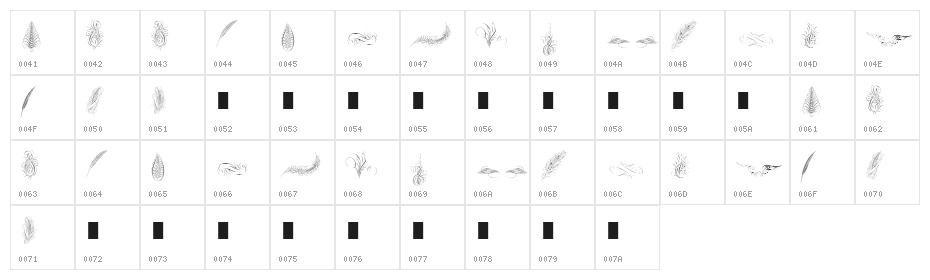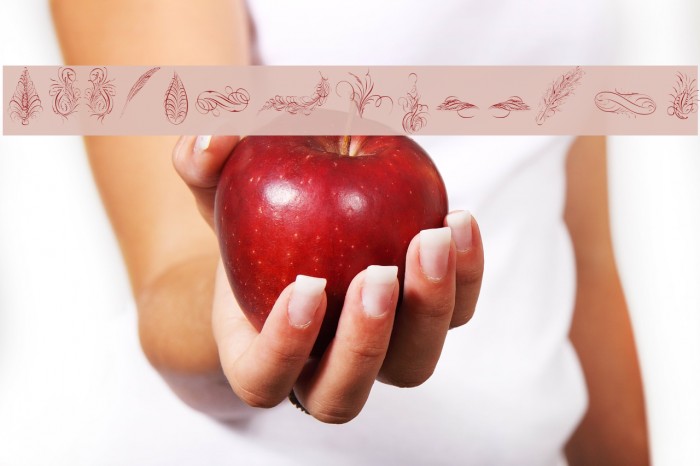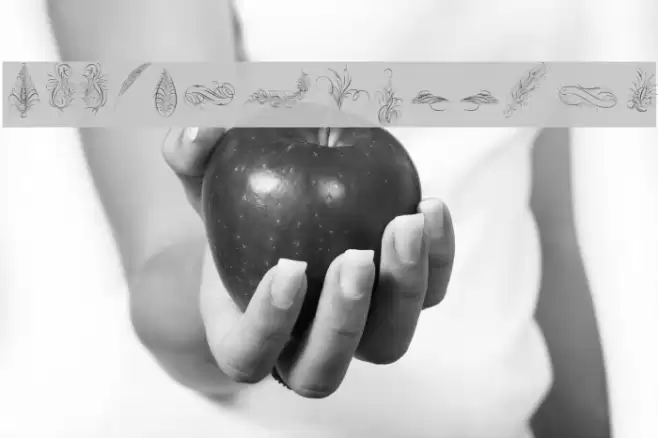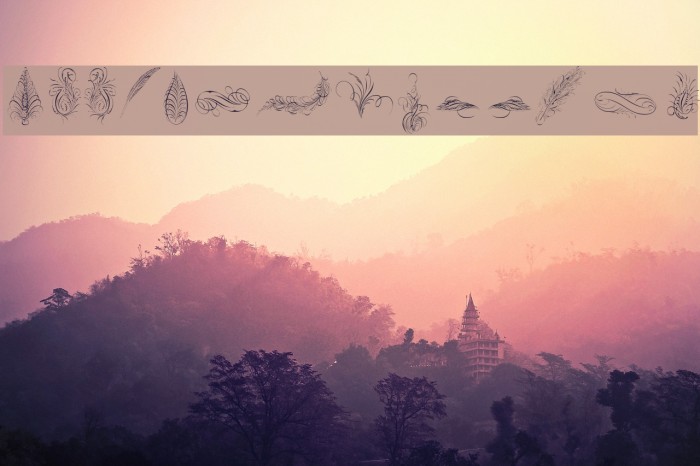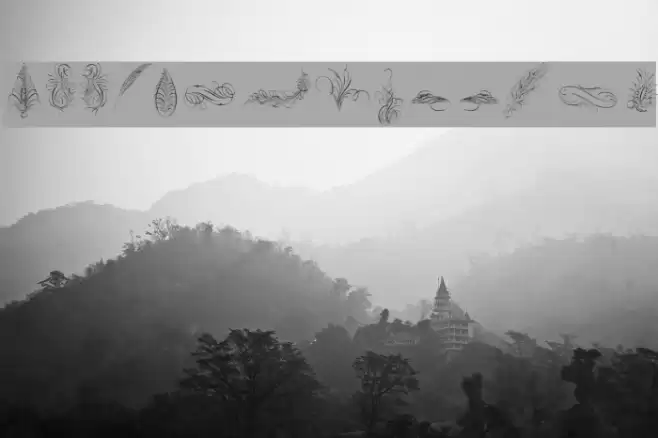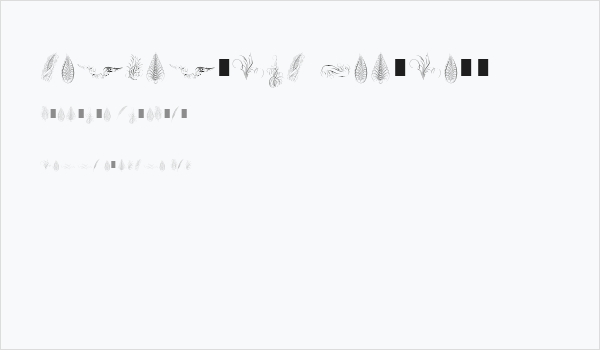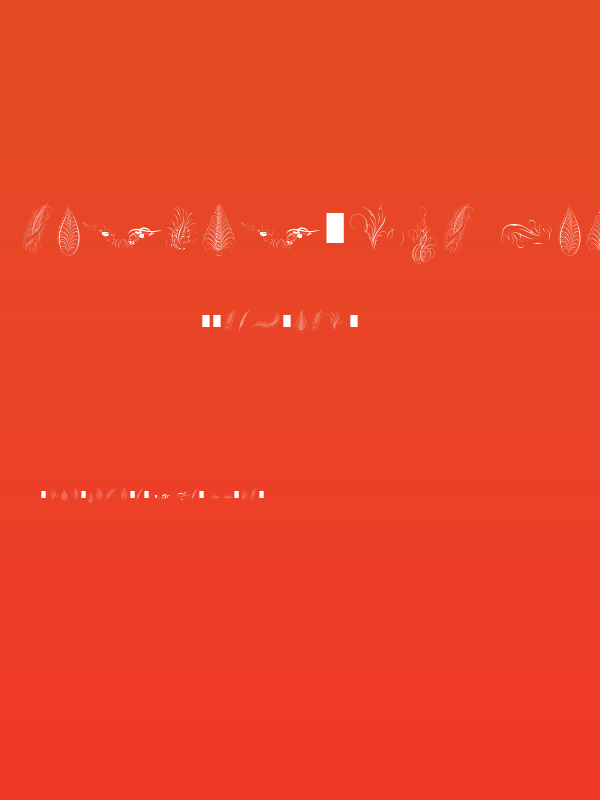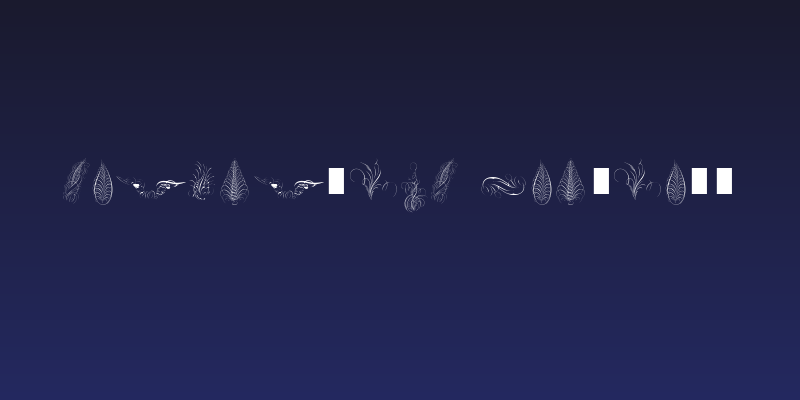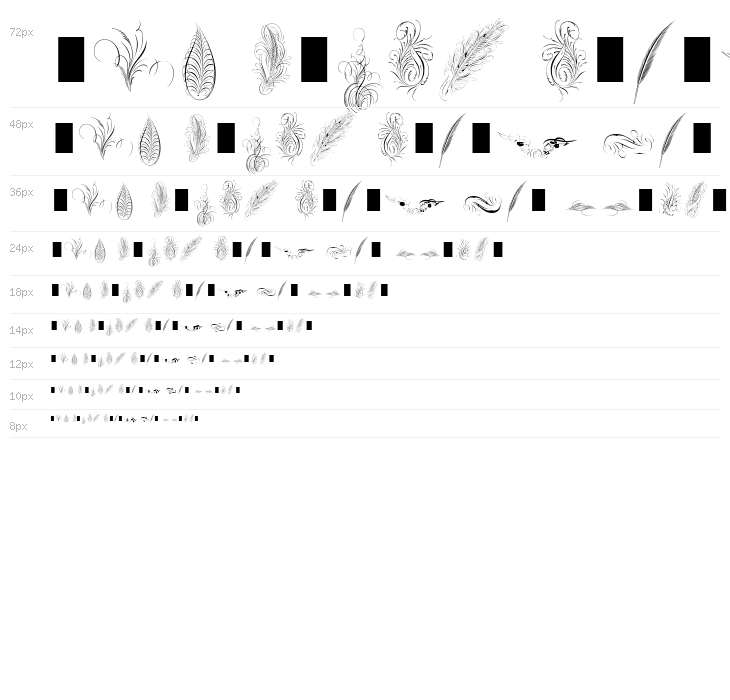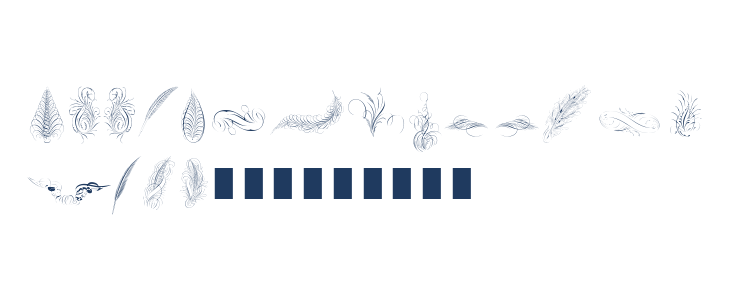
Penmanship Feathers Font
Penmanship Feathers Description
Highly decorative and ornate collection of penmanship-inspired feather and flourish illustrations, featuring intricate linework and elegant curves. The glyphs are artistic rather than traditional alphanumeric characters, emphasizing ornamental detail.
| Overall Style | Decorative, Vintage, Ornamental |
| Use Case | Decorative elements, Borders, Accents, Invitations |
| Proposed Projects | Wedding invitations, certificates, luxury branding, decorative borders, vintage-themed designs. |